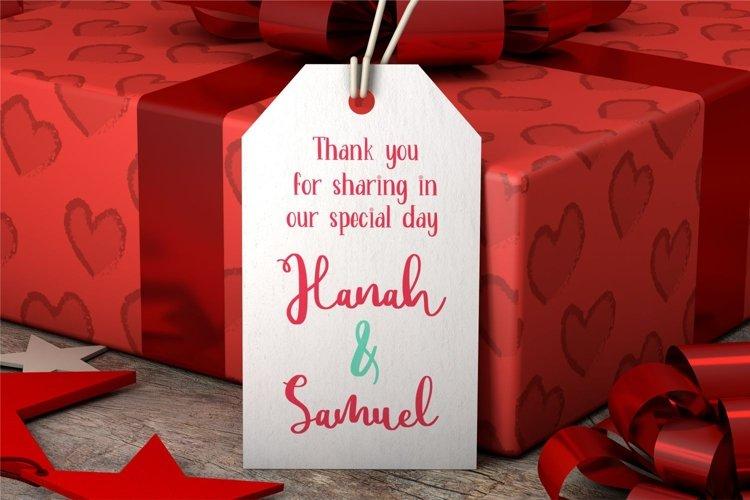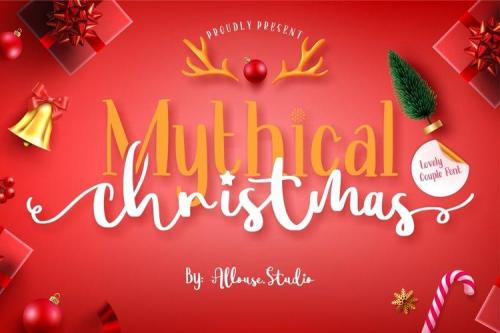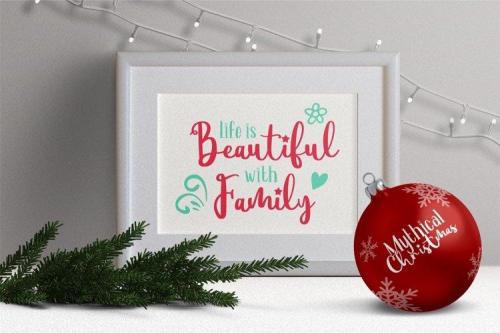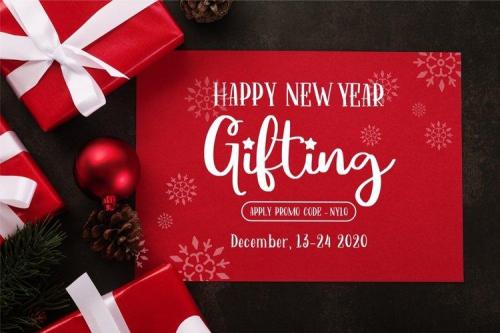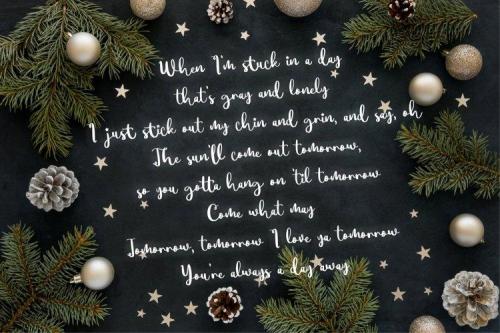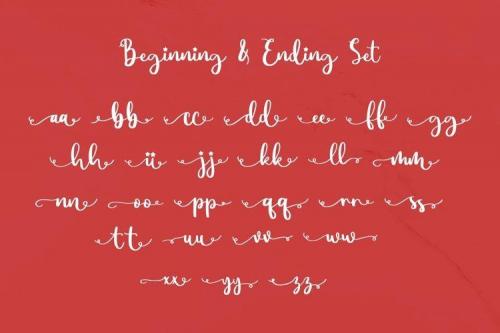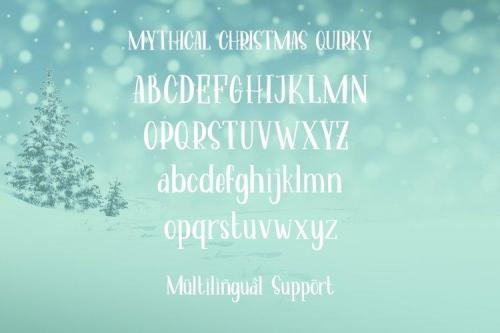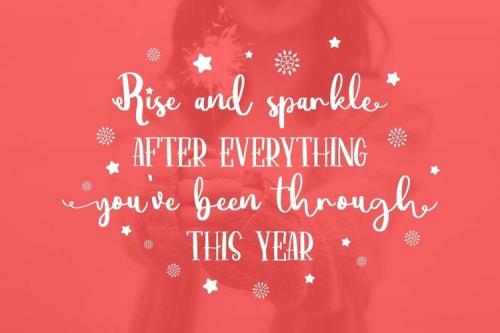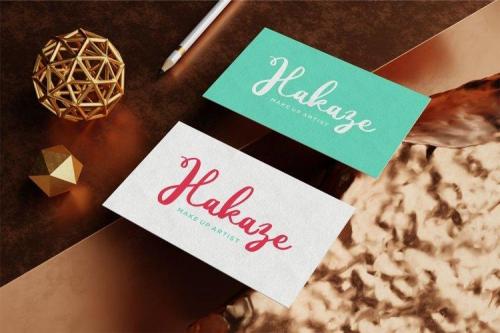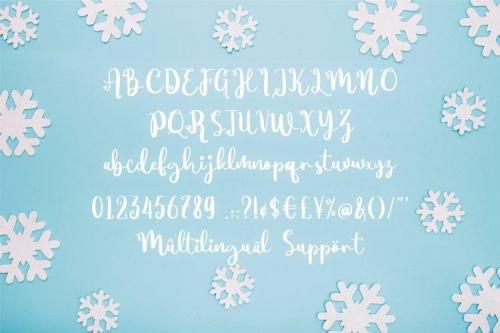
Mythical Christmas is a lovely versatile handwritten font. Not too thin and not too thick, balanced and varied, this font was designed to enhance the beauty of your projects.
Mythical Christmas is perfect for product packaging, branding project, megazine, social media, wedding, or just used to express words above the background.
- Designer: Allouse Studio